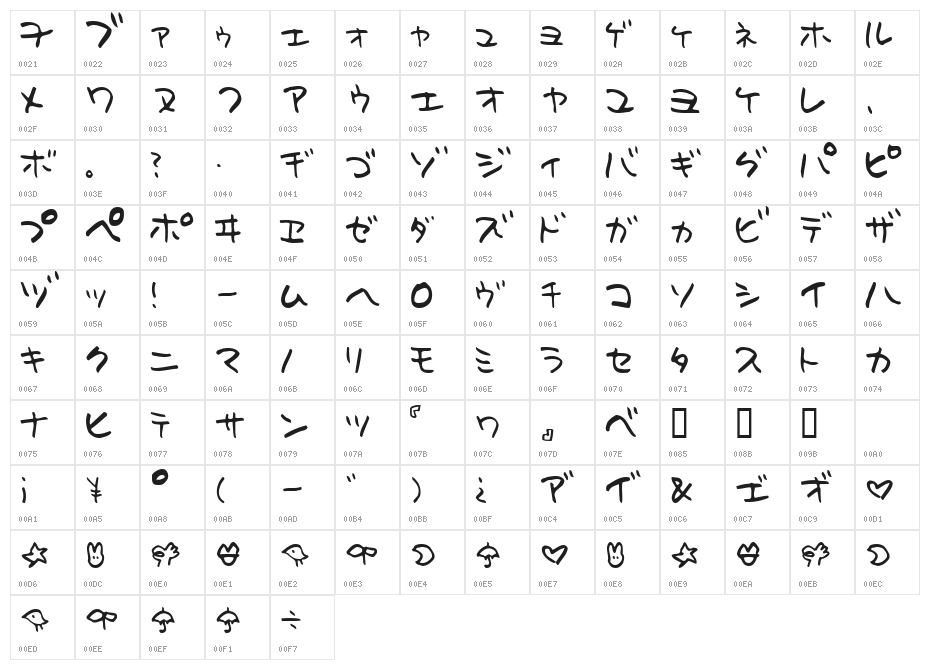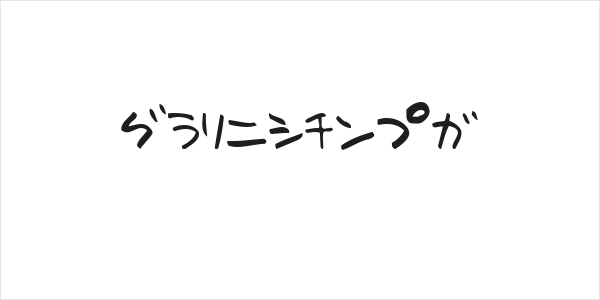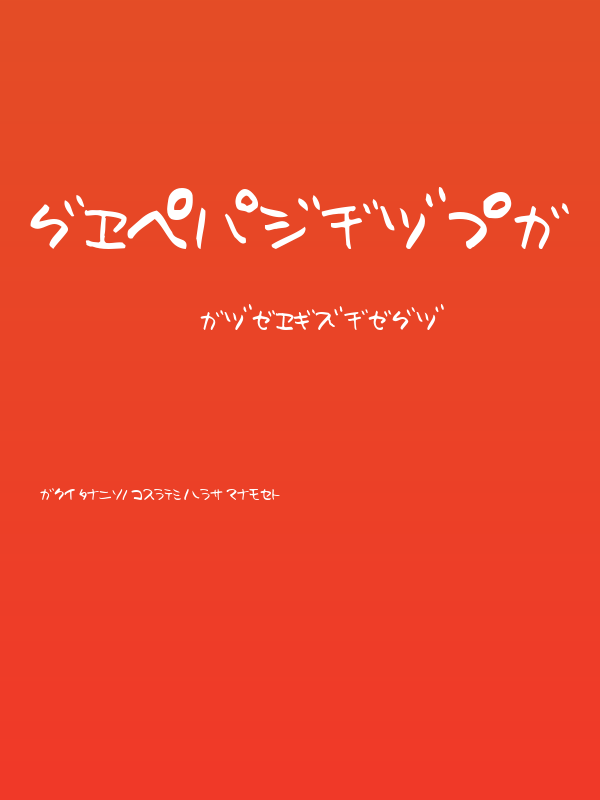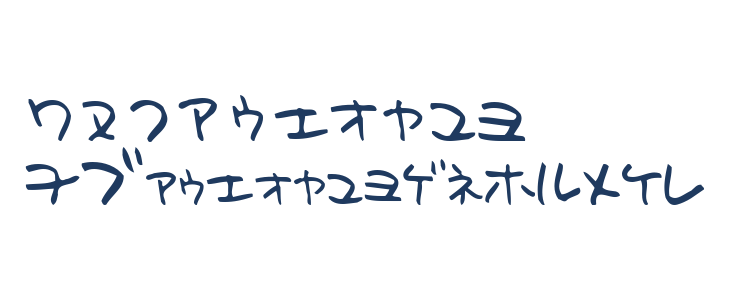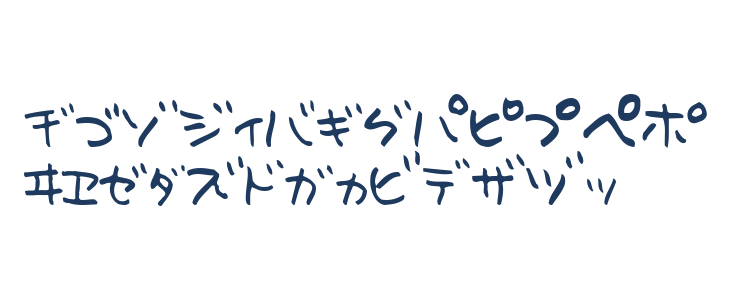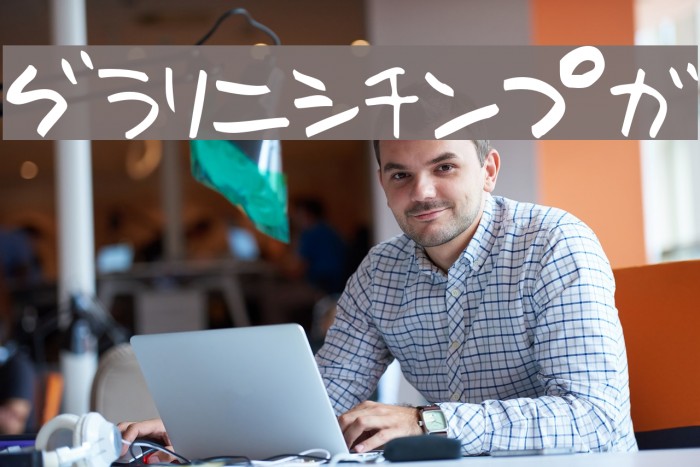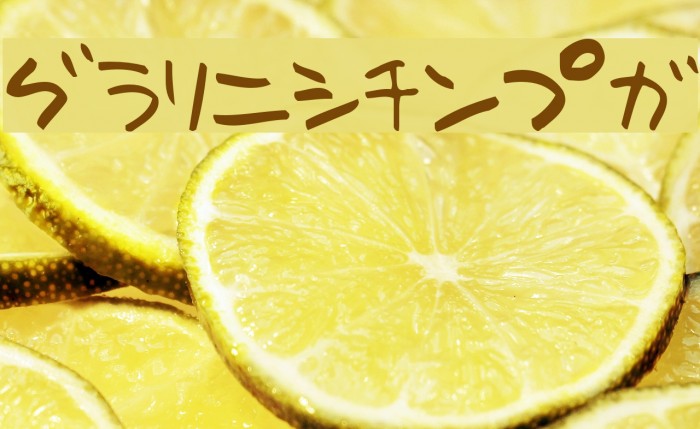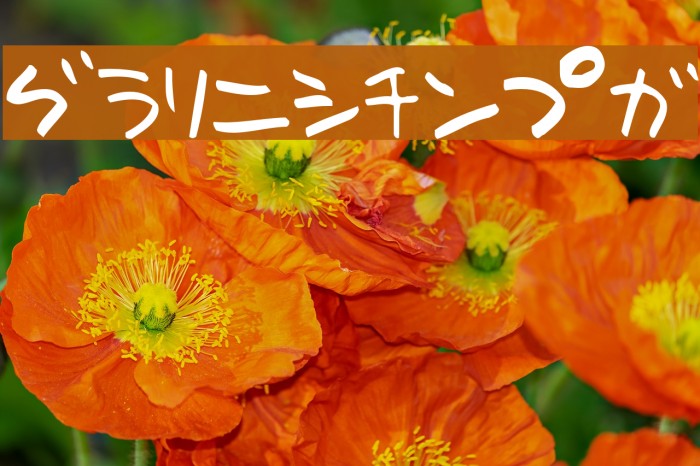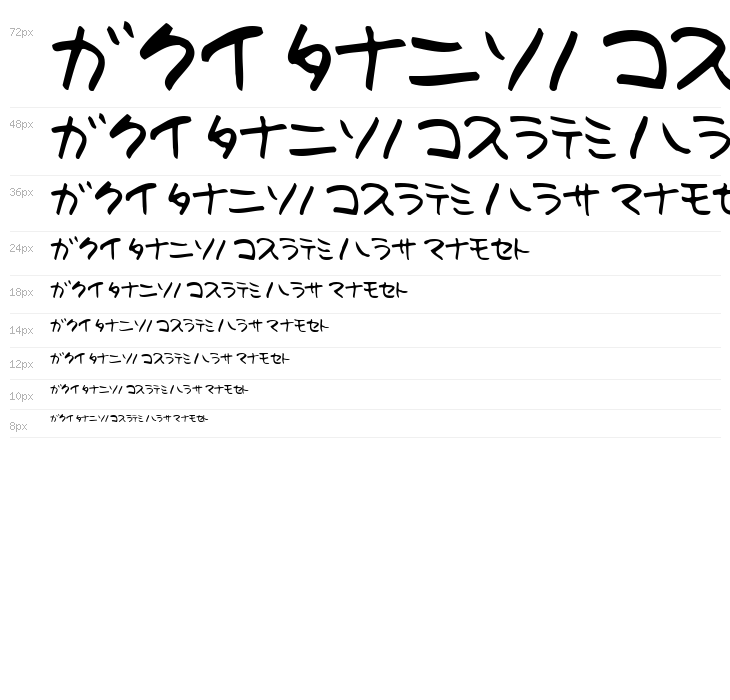
HolidayKT Font
HolidayKT Description
This font features a playful and dynamic style, characterized by its handwritten appearance. The strokes are uneven, giving it a casual and organic feel. The characters are slightly tilted and vary in size, adding to the whimsical nature of the font. The overall design is reminiscent of a personal touch, as if each letter was carefully drawn by hand. This font exudes a sense of creativity and spontaneity, making it ideal for projects that require a touch of personality and flair. The unique shapes and curves of the letters contribute to its distinctiveness, ensuring that it stands out in any design context.
| Overall Style | Casual, Creative |
| Proposed Projects | Ideal for greeting cards, children's books, creative posters, and personal branding. |